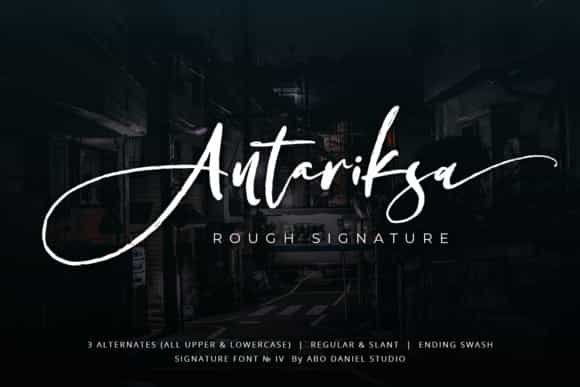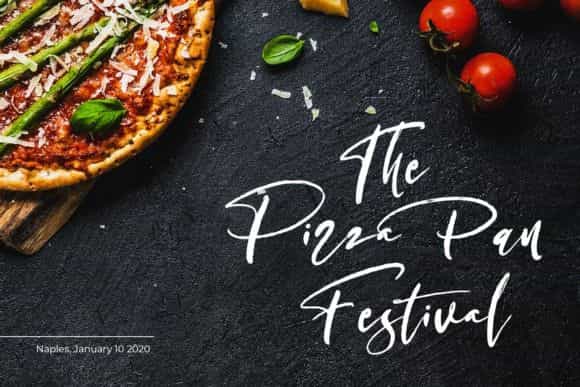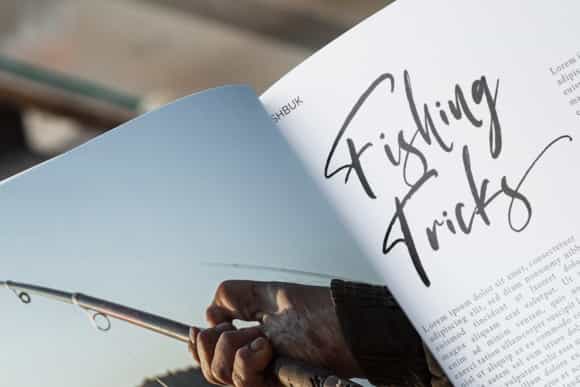
Discover Antariksa Font, part of the Brush Calligraphy collection—a versatile and unique font perfect for adding a personal touch to your projects. Download it for free and enjoy crafting designs with style, from invitations to social media posts. This font is available exclusively for personal use, giving you the freedom to create without limits. Unlock your creativity with Antariksa Font today!
Antariksa is a gorgeous handwritten font that goes well with your watercolor design, but this does not mean that it can only be used for watercolor designs ! NO !! This font is also a good fit for the projects that need fonts with natural and hand lettered effects.